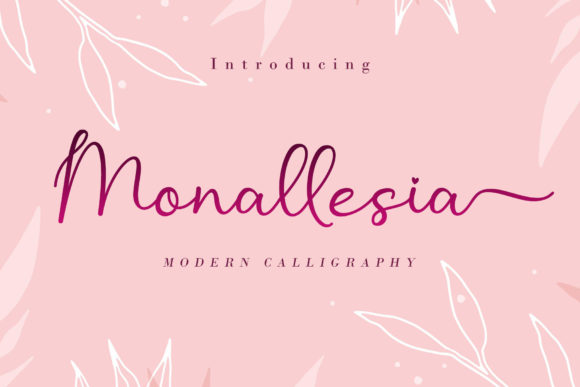
Journey into the world of Monallesia Font, a script font family that will ignite your creativity and leave you spellbound. Crafted with elegance and a touch of whimsy, this font is your perfect partner for creating festival posters that resonate with your audience.
Unleash the beauty of Monallesia's varying baseline, smooth lines, and stunning alternates. Each letter dances gracefully, inviting your readers to embark on a captivating journey. Embrace the contemporary freshness of this font while cherishing its classic calligraphic roots.
With Monallesia Font, you hold the key to transforming your projects into masterpieces. Its PUA encoding grants you effortless access to a treasure trove of glyphs and swashes, empowering you to add intricate details and a touch of magic to your designs.
Picture this: your festival poster adorned with Monallesia's enchanting characters, captivating the attention of passersby and inviting them to immerse themselves in the vibrant energy of your event. The font's elegant flow mimics the rhythm of music, drawing people in and creating an unforgettable experience.
Don't settle for ordinary when you can embrace the extraordinary. Let Monallesia Font elevate your festival posters to new heights, leaving a lasting impression on your audience. Embrace the power of creativity and watch your designs flourish with Monallesia's timeless beauty.